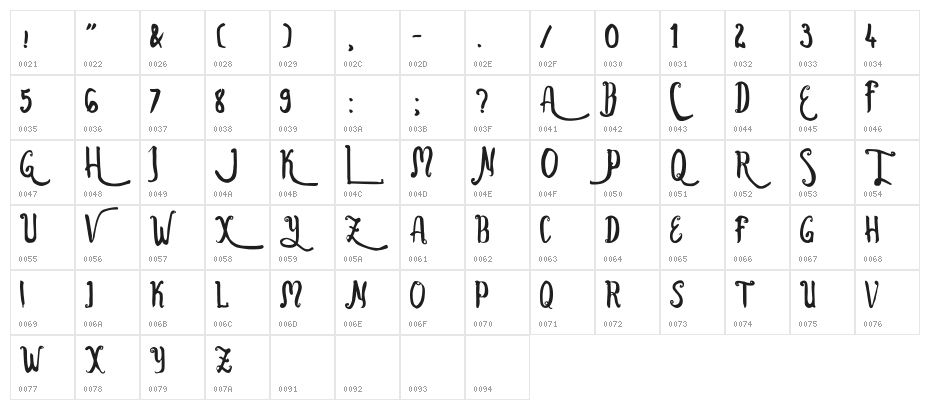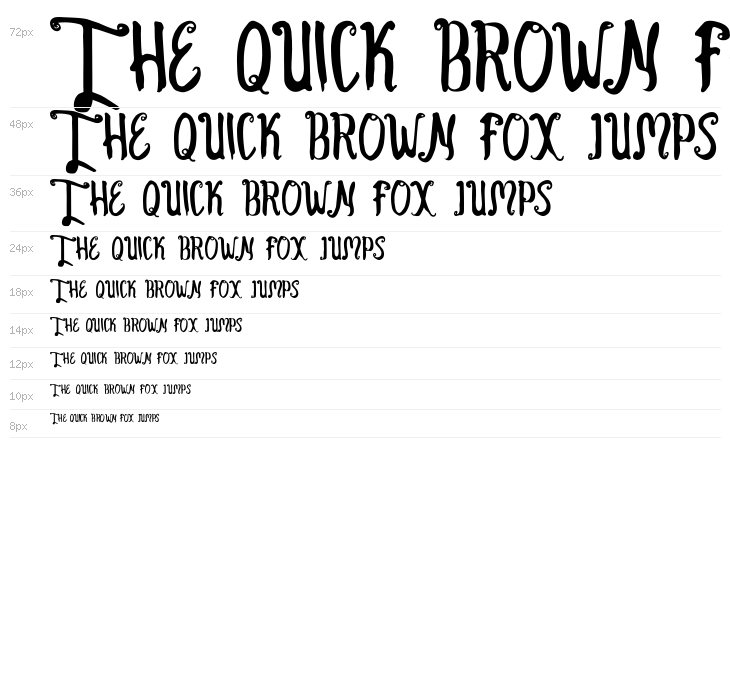
Ballistic Font
Ballistic Description
This font features a bold and playful design with a decorative flair. The characters are characterized by their whimsical curves and unique serifs, giving them a lively and dynamic appearance. The uppercase letters have an exaggerated, almost theatrical style, while the lowercase letters maintain a consistent flow with slight variations in stroke. The numbers and special characters complement the alphabet with similar stylistic elements, ensuring a cohesive look. This font's distinctive style makes it stand out, perfect for projects that require a touch of creativity and fun.
| Use Case | Logos, Headlines, Posters |
| Proposed Projects | Ideal for children's books, playful branding, creative posters, and event invitations. |